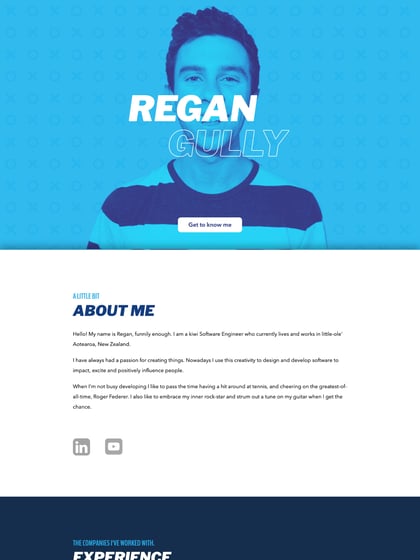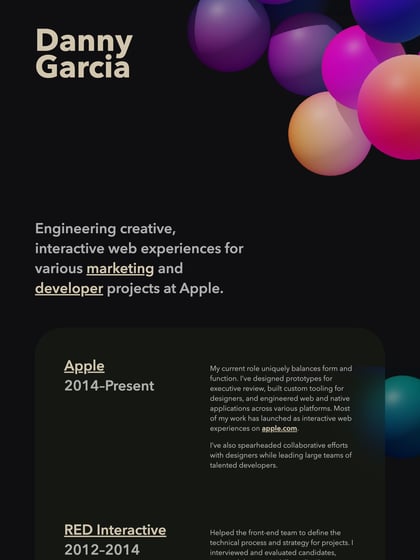
Avenir Next
Avenir Next develops the geometric and humanist direction of Avenir into a separate family. Check the specific width and weight in the design rather than treating the two names as interchangeable.